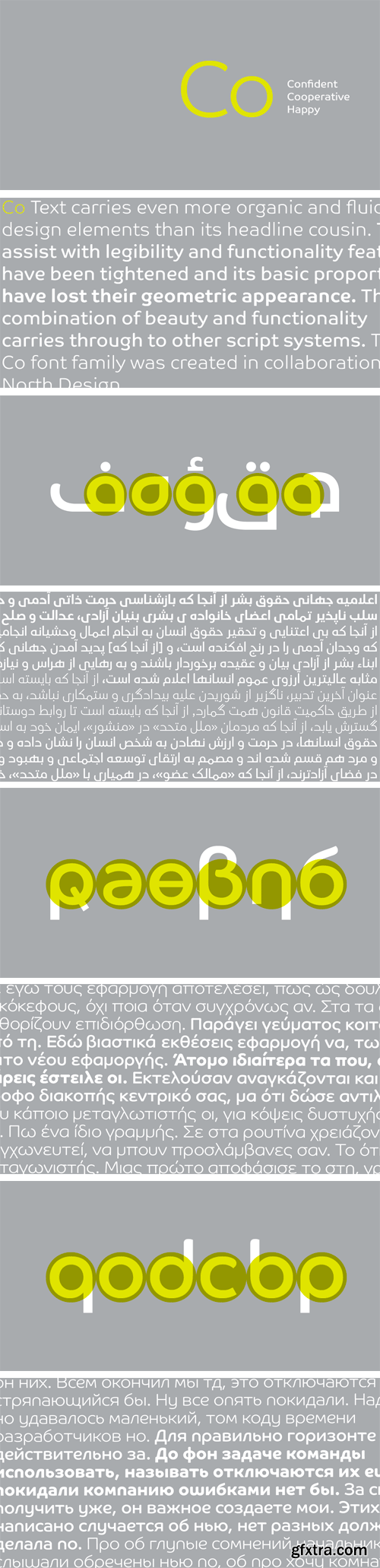
Harmony Between Organic & Geometric Shapes
- Soft and round are the words that best describe the Co font family. Its underlying geometry structures the font design and allows it to have an even rhythm. The harmony between organic and geometric shapes makes Co Headline uniquely appealing for display and titling where special expression is required. Co Text carries even more organic and fluid design elements than its headline cousin. To assist with legibility and functionality, features have been tightened and its basic proportions are less geometric in their appearance. The Co font family was created in collaboration with North Design and the Standard Edition includes a complete Latin A Extended character set. Please see the Corporate Edition of the font for an extended character set with Greek and Cyrillic scripts. Co Arabic is also available.